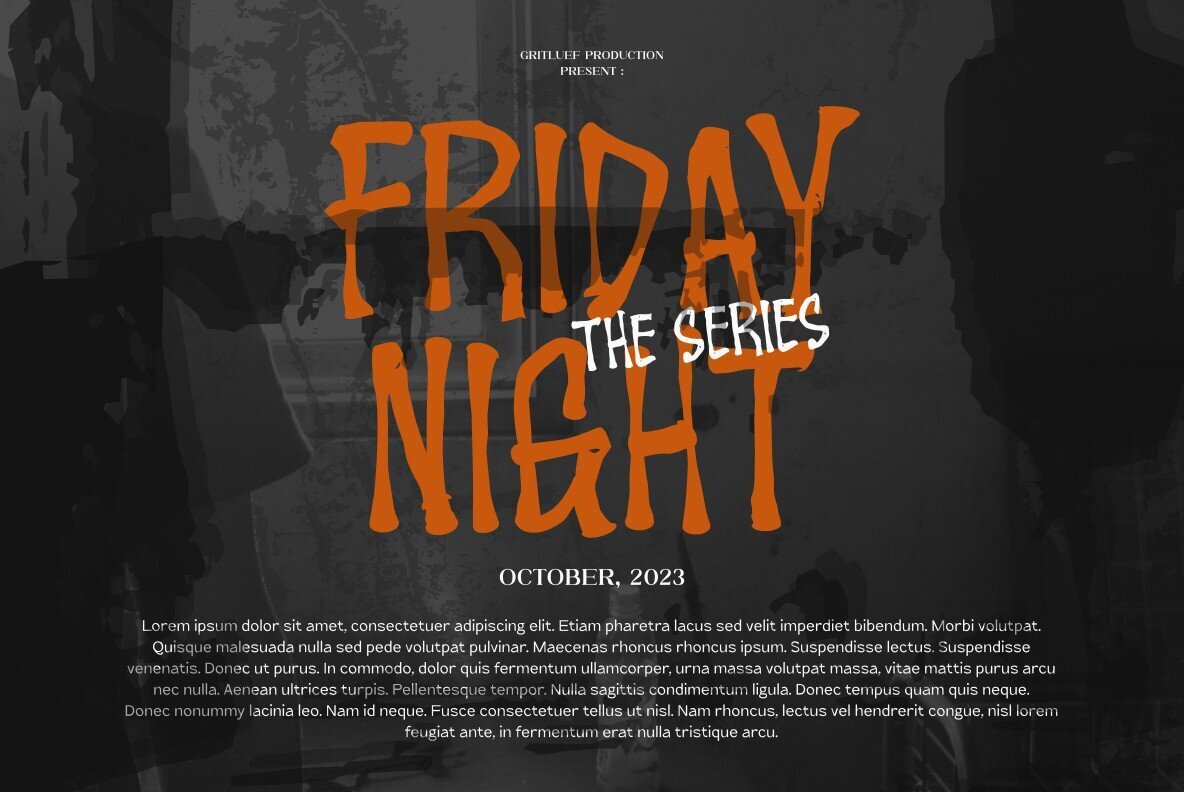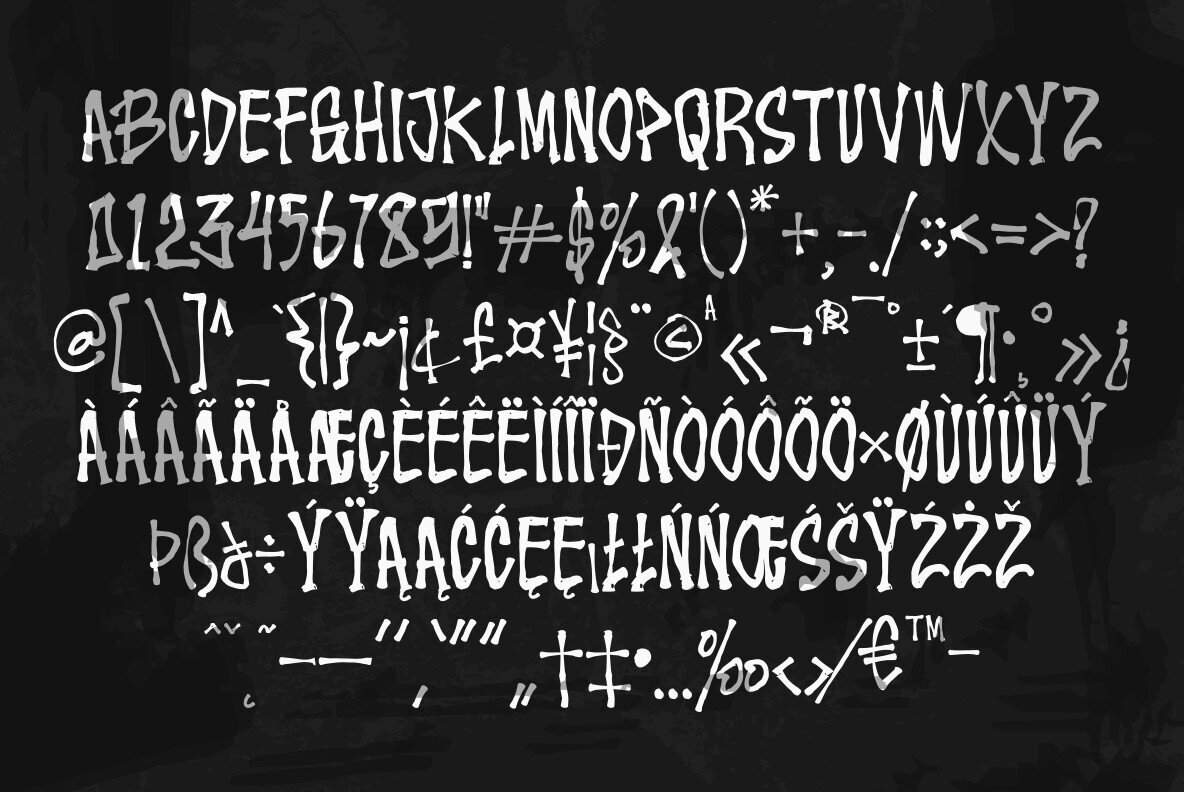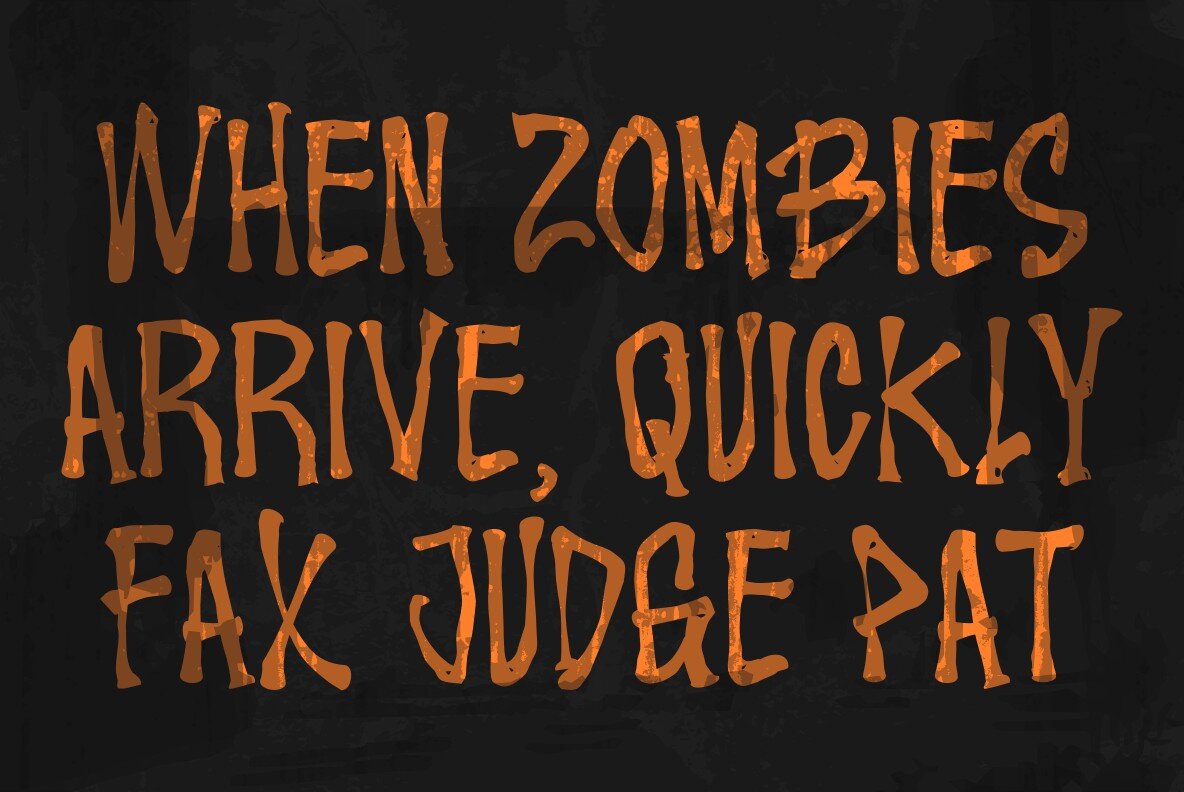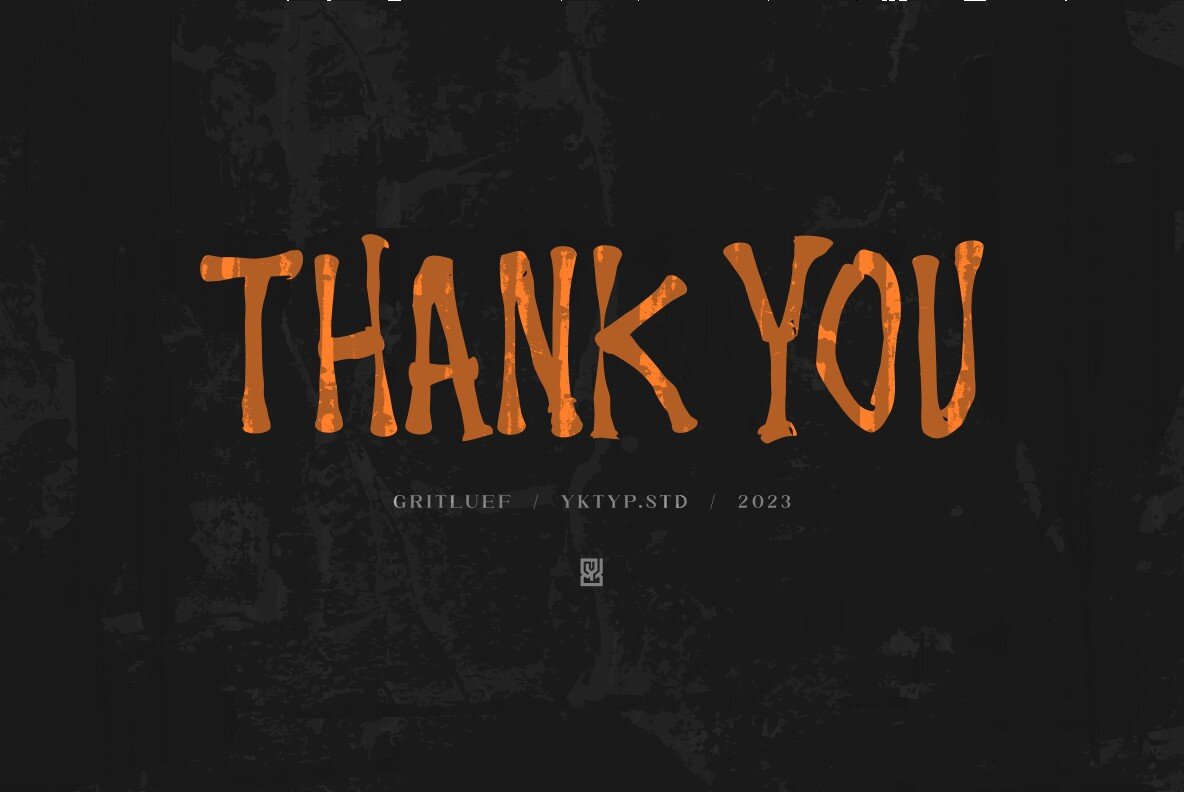
Gritluef Font
Gritluef
Bring a touch of fright to your designs with Gritluef, a horror display font crafted for the bold. This font is the perfect choice for adding that eerie element to your creative projects. Gritluef seamlessly integrates into a variety of design applications:Gritluef: Distinct Horror Display Font